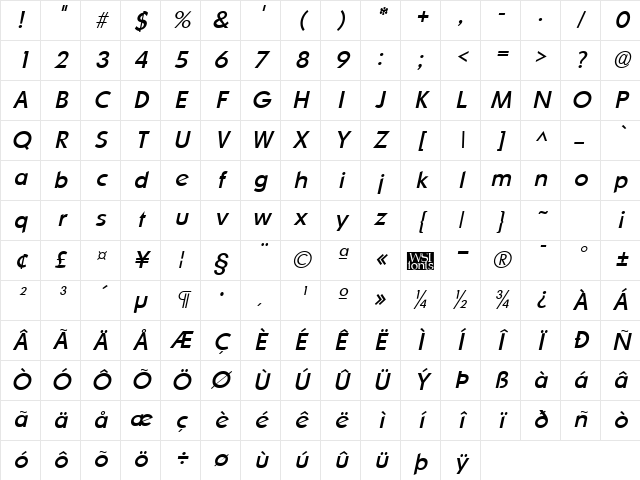
Sharnay Italic
Design Context for Sharnay
Sharnay is a composed and adaptable typeface that performs quietly and consistently across a wide range of design contexts. The slanted form adds forward momentum and visual energy.
Pro Tip: Use Sharnay for emphasis, pull quotes, and subheadings where its slanted energy can add rhythm to the layout.